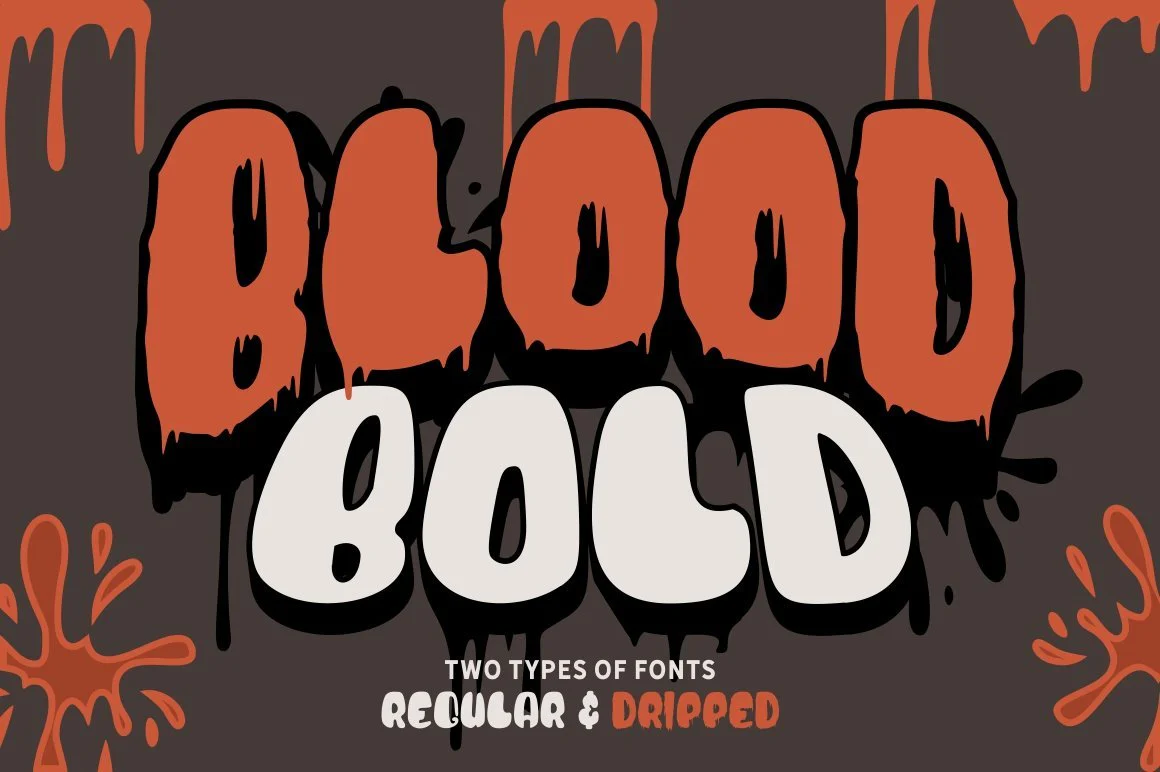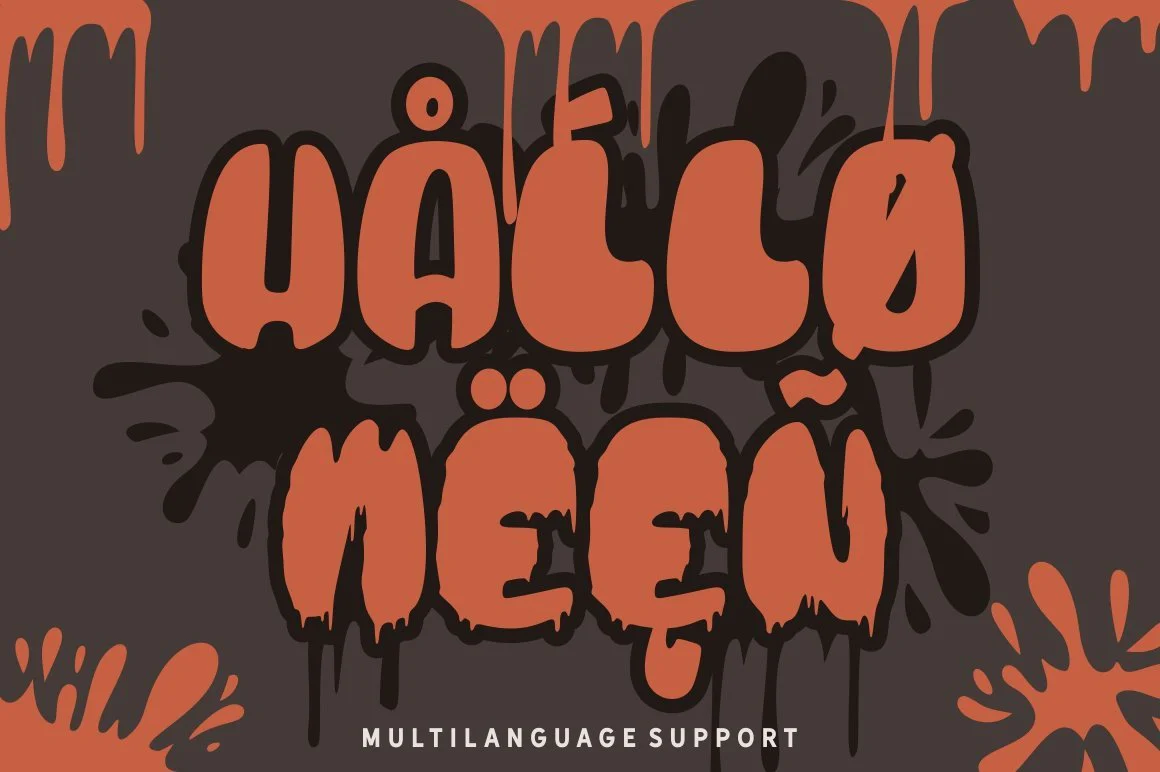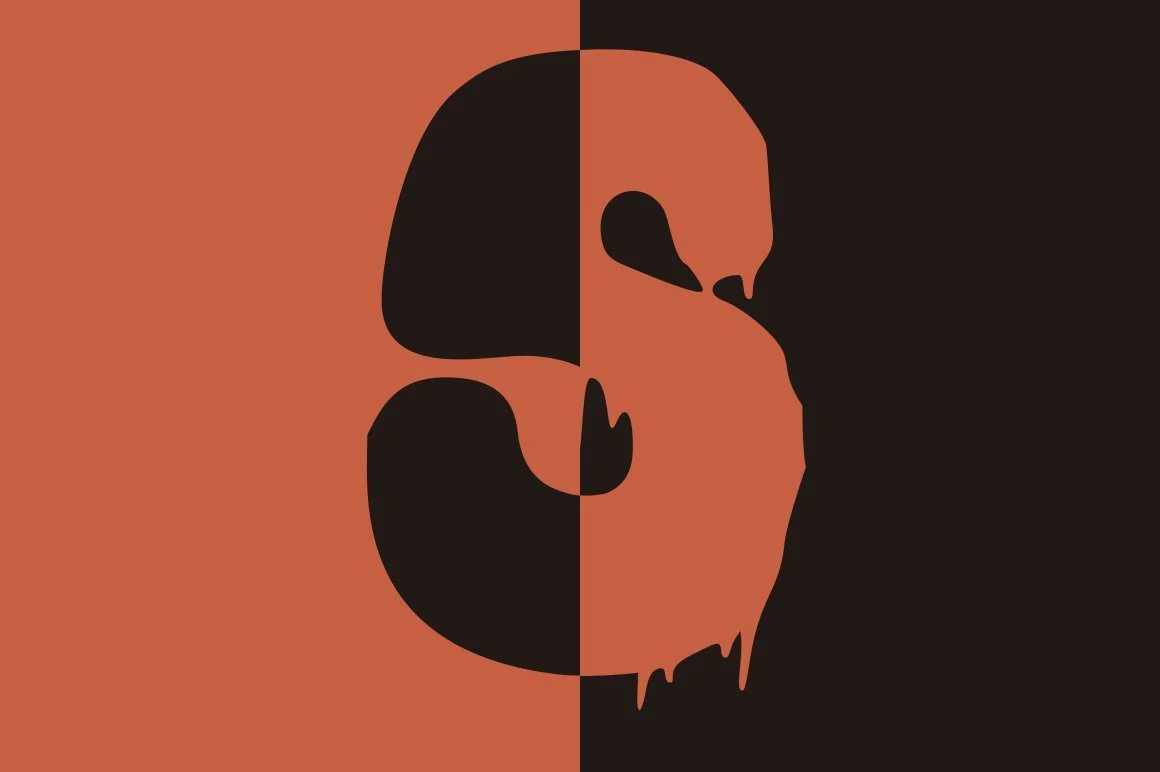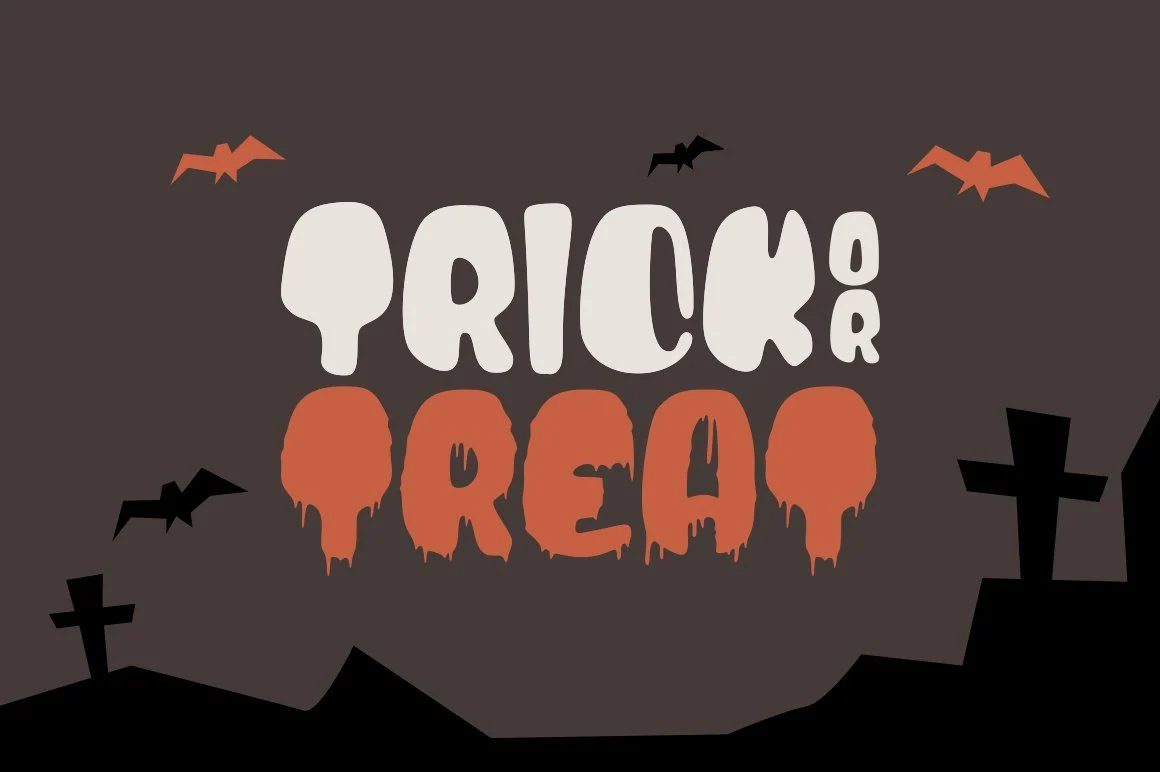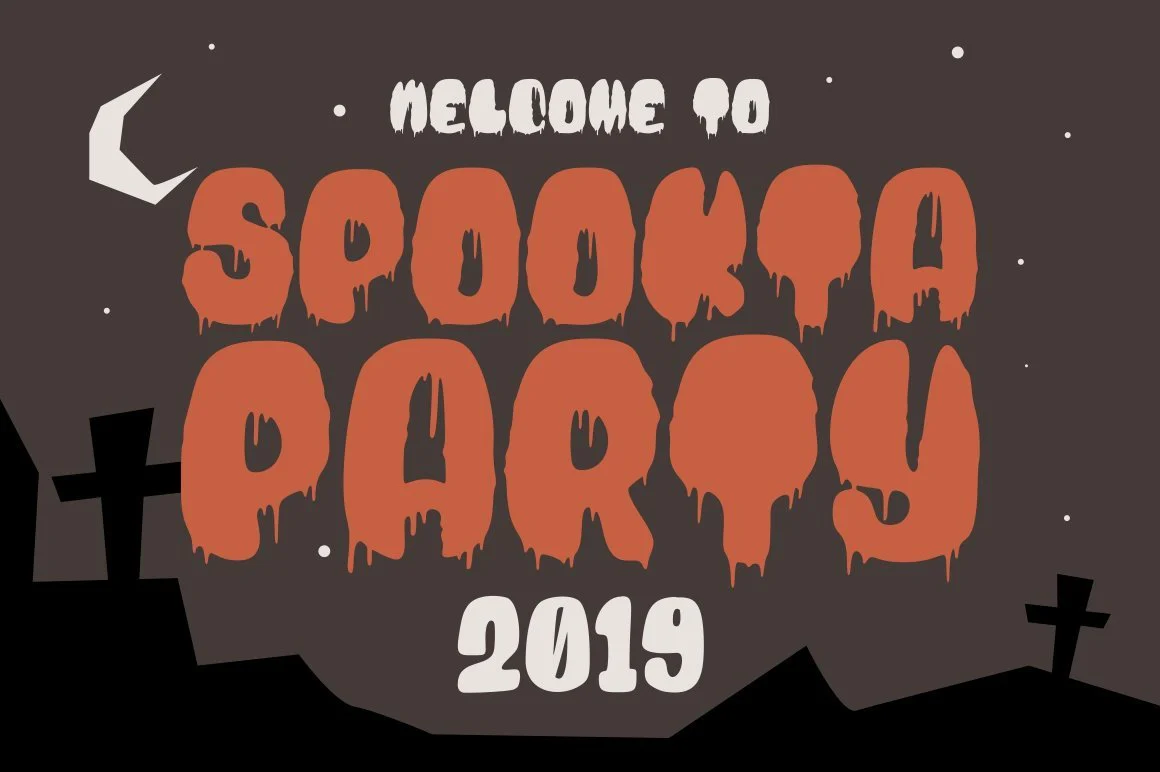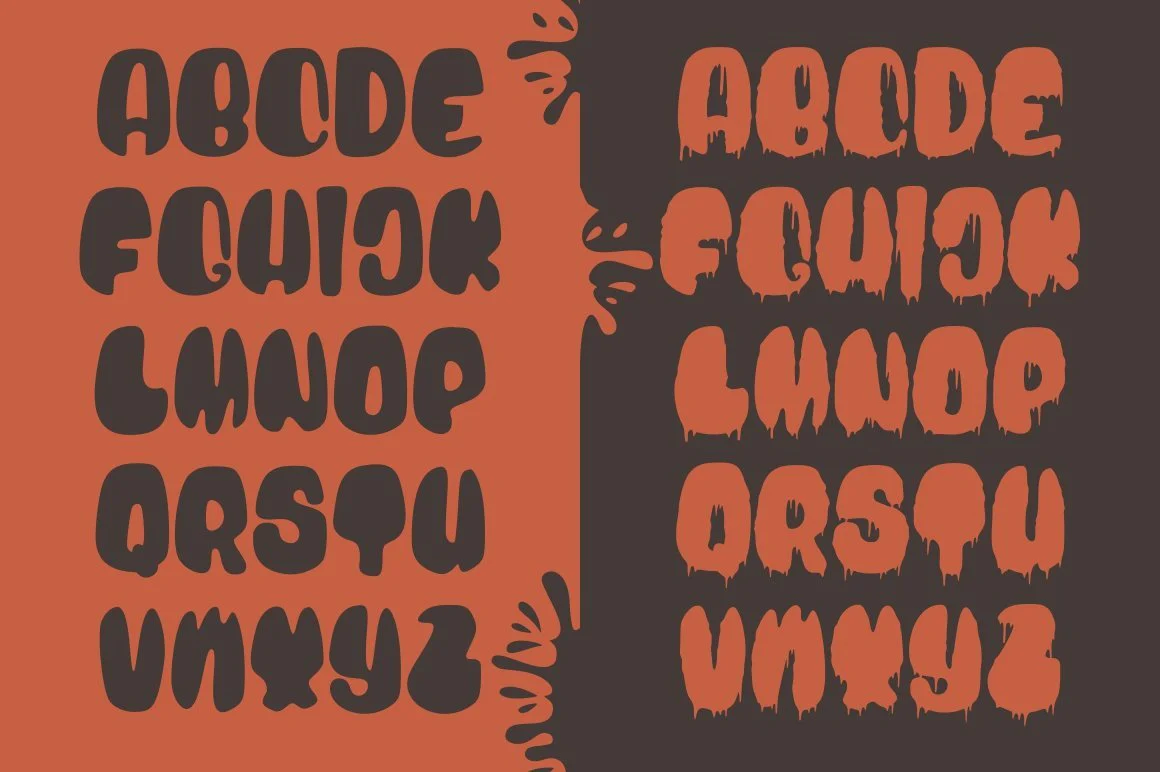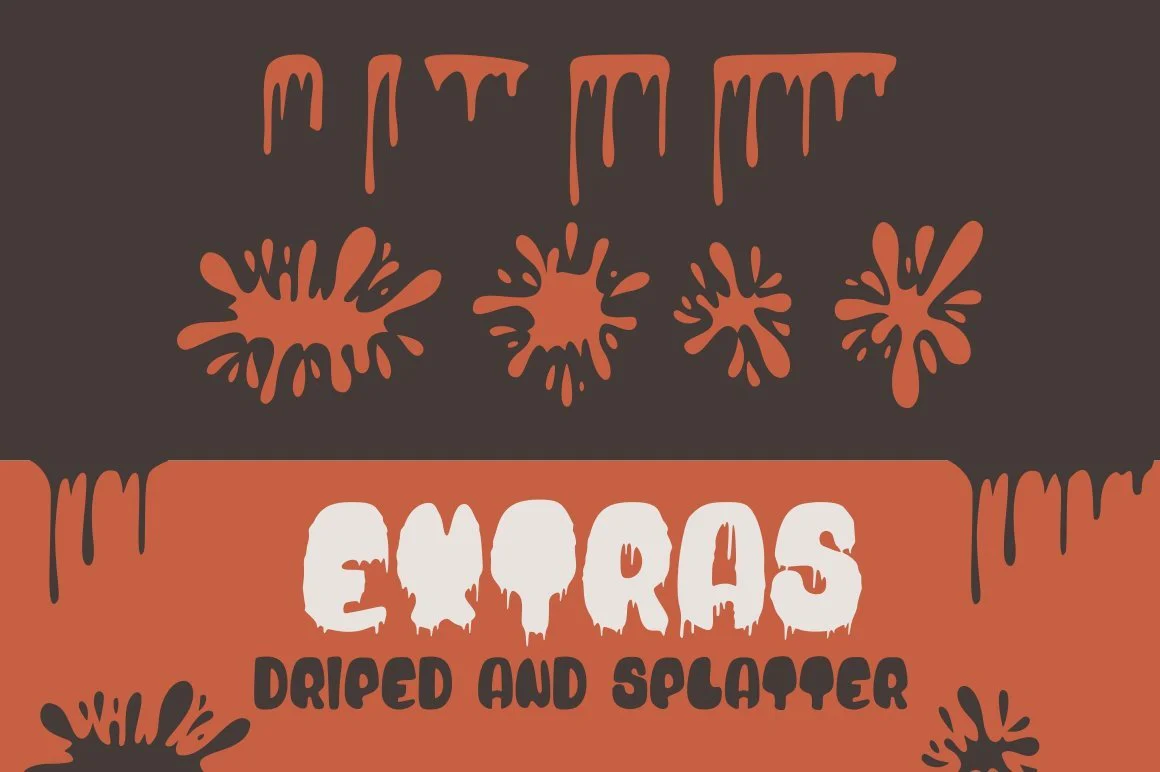
Blood Bold - Fun Halloween Two Fonts
Introducing Blood Bold - Fun Halloween Two Fonts
This Display Font is suitable to use for casual purpose especially children related halloween event with playful style and also can be used for personal purpose.
We provide two typefaces in this item.
- Uppercase & Lowercase letters